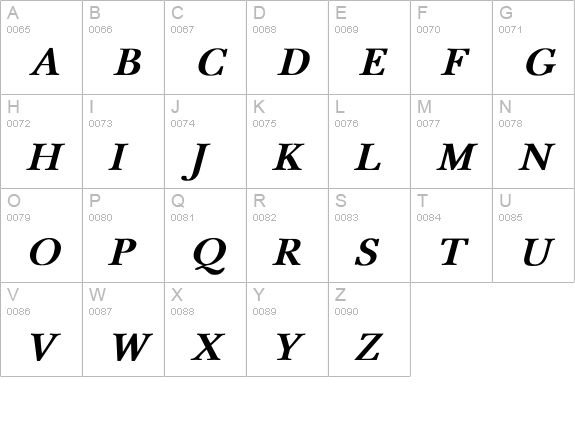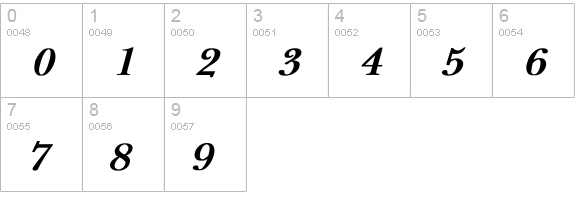
NewBaskerville Bold Italic is a strong, high-contrast, italic variant in the NewBaskerville typeface family \xE2\x80\x94 well suited to headlines, attention-grabbing titles, and strong calls-to-action.
NewBaskerville Bold Italic is a sophisticated and elegant font that exudes a sense of classic refinement with a modern twist. Its bold and italicized design adds a touch of flair and emphasis to any text, making it perfect for headlines, titles, and other display purposes. The strong yet graceful strokes of this typeface create a sense of authority and sophistication, making it ideal for projects that require a touch of elegance. What's even better is that NewBaskerville Bold Italic is available for free download at FontsMarket.com. This means you can easily access and use this beautiful font in your projects without any cost. Whether you're designing a website, creating a brochure, or working on a branding project, NewBaskerville Bold Italic is sure to elevate your design with its timeless appeal. Don't miss out on the opportunity to add this stunning font to your collection - download NewBaskerville Bold Italic for free today at FontsMarket.com and bring a touch of classic beauty to your designs.